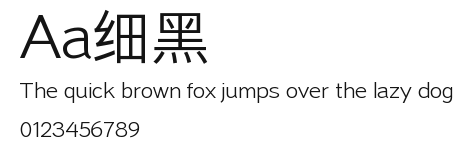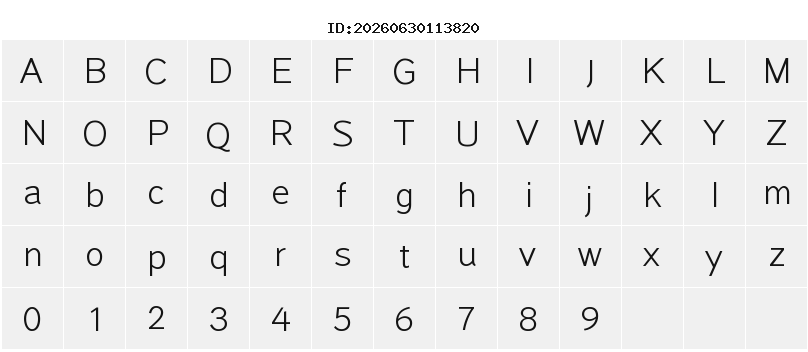
Aa细黑 Preview
• Font Name: Aa细黑
• Font Style: 常规
• Font ID: 1.000;Aa;AaHeiTi-Li;2015
• Full Font Name: Aa细黑
• PostScript Name: AaHeiTi-Li
• Character Count: 8433
• Manufacturer: 北京奇思众和科技有限公司
• Description: AaHeiTi-Li is a fantastic font with excellent features designed for user interfaces and electronic communications.
About Aa细黑.ttf
Aa细黑.ttf is a modern, elegant sans-serif font designed for ultimate readability and visual harmony. Perfect for branding, headlines, web design, and print materials.